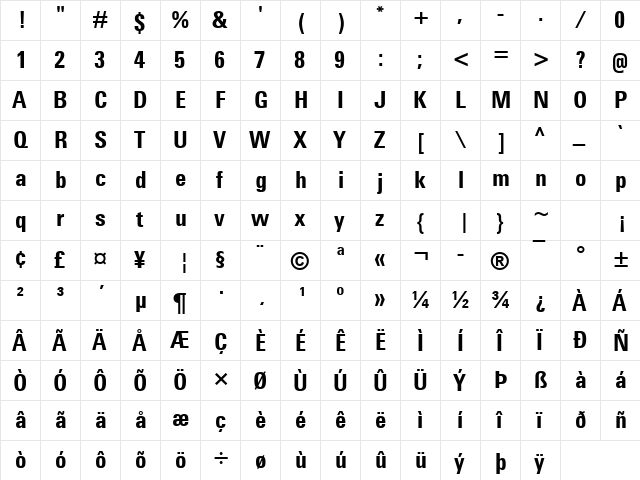
Utah MT Cond Bold Regular Font Preview
Design Context for Utah MT Cond Bold Typeface
Utah MT Cond Bold offers clean, dependable letterforms without strong stylistic allegiance, making it a practical choice for designers who need flexibility. The heavy weight commands attention and anchors typographic hierarchies. The condensed width makes it efficient for tight spaces without sacrificing legibility.
Pro Tip: Use Utah MT Cond Bold in both headline and body roles to test its range before committing to a single application.